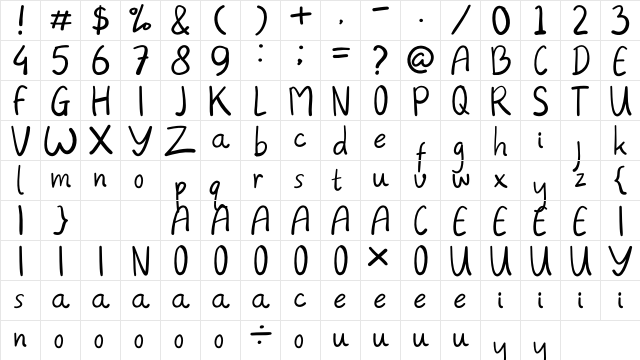
Always Regular
| Foundry | Typemacz Studio |
| Designer | Yusuf sangdes |
Design Context for Always Typeface
Always is a composed and adaptable typeface that performs quietly and consistently across a wide range of design contexts.